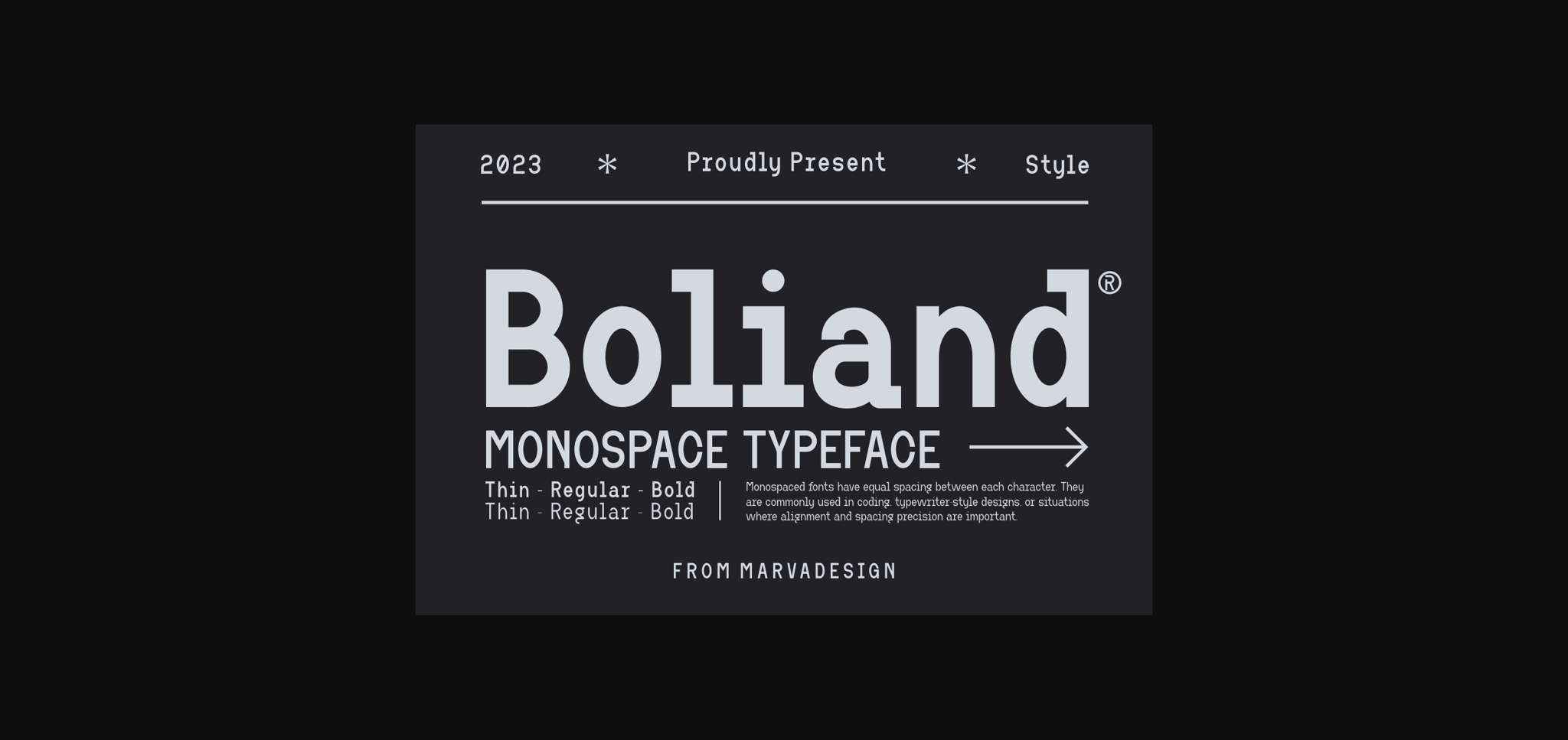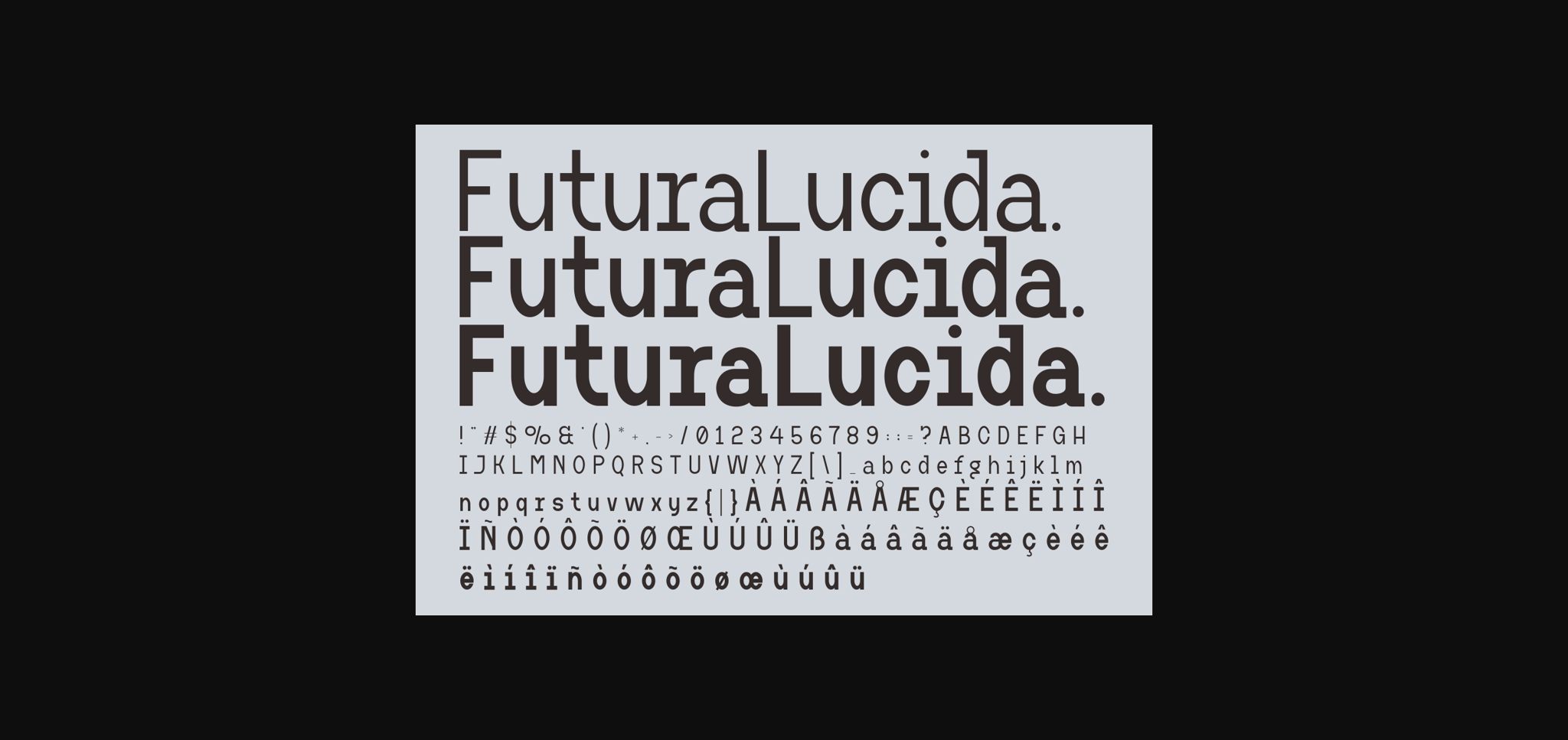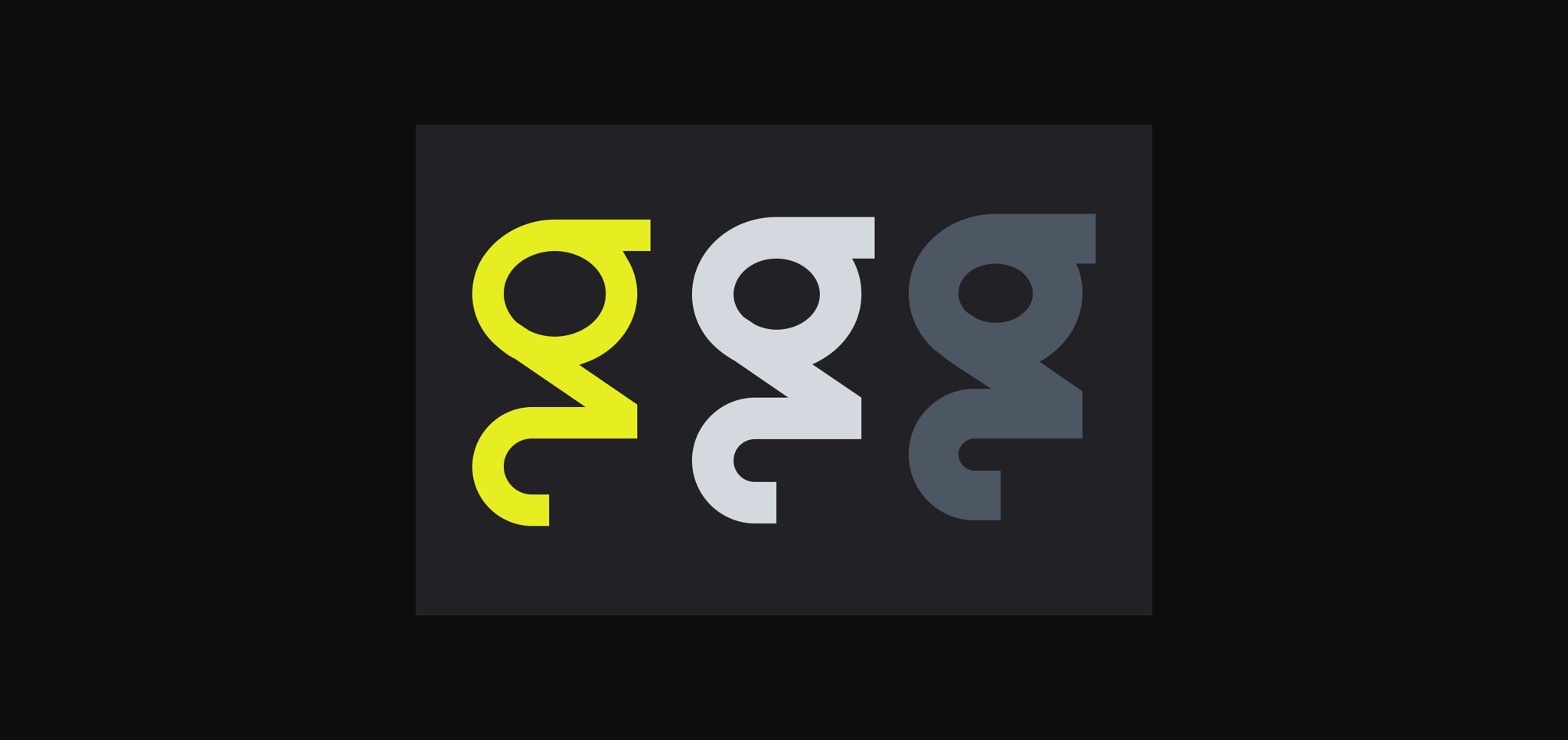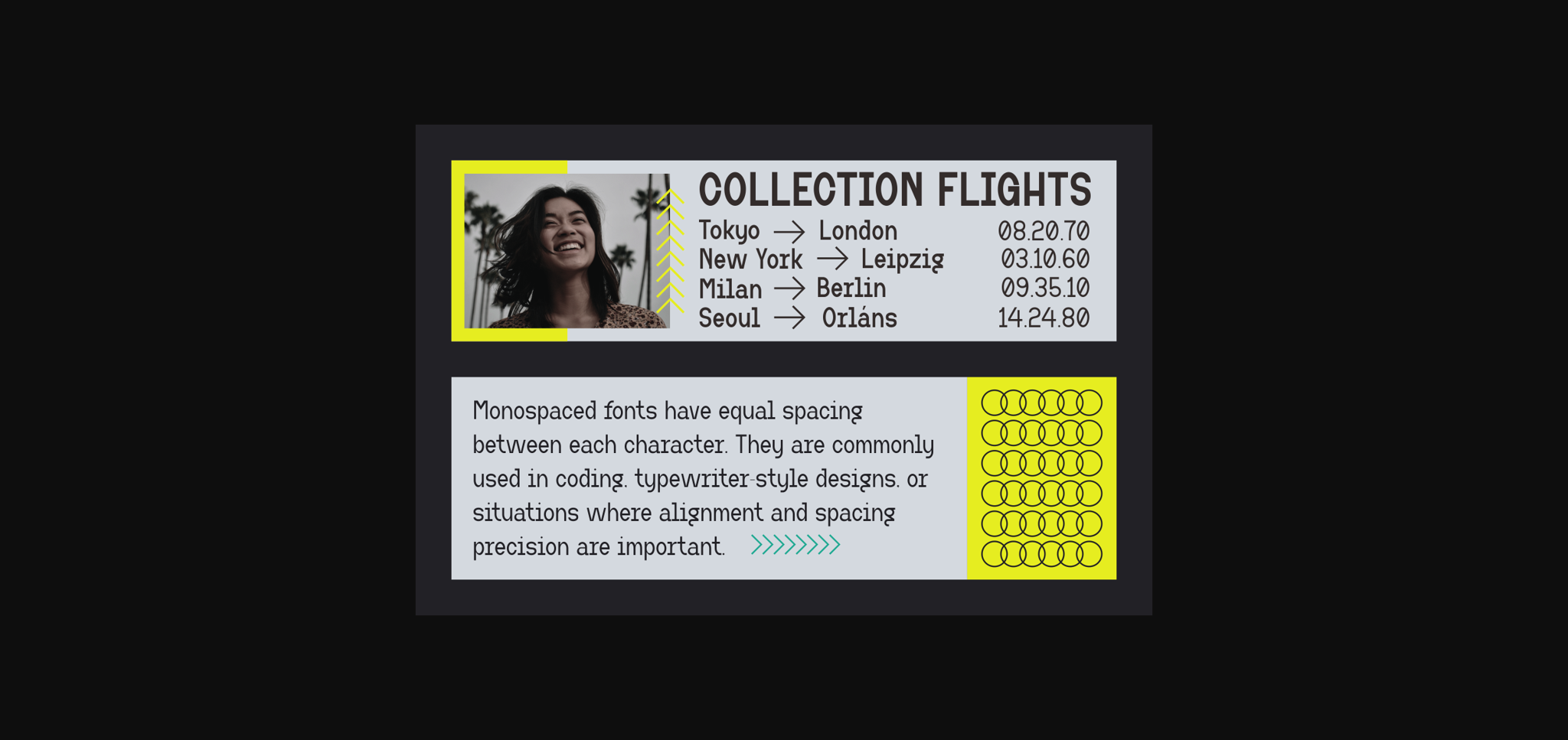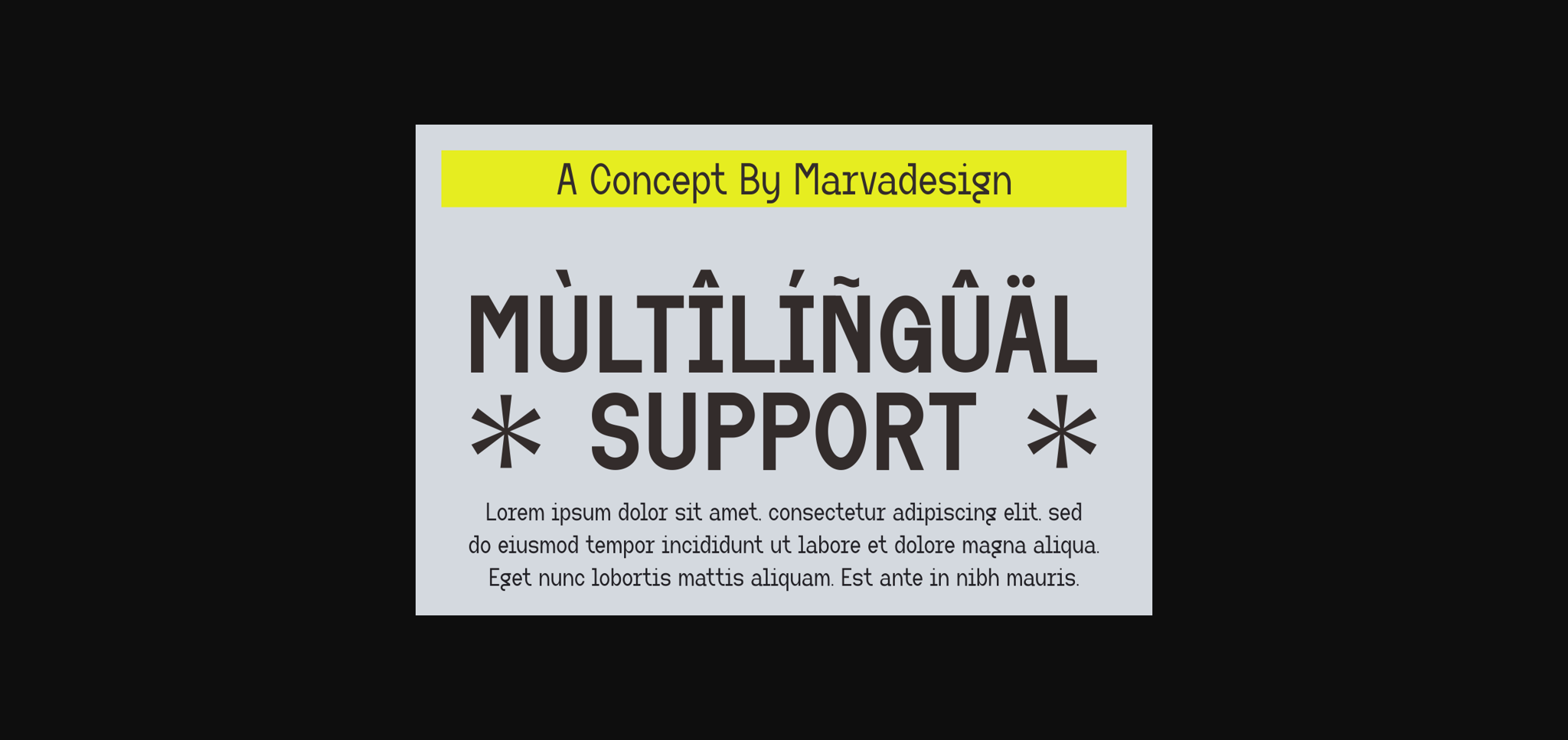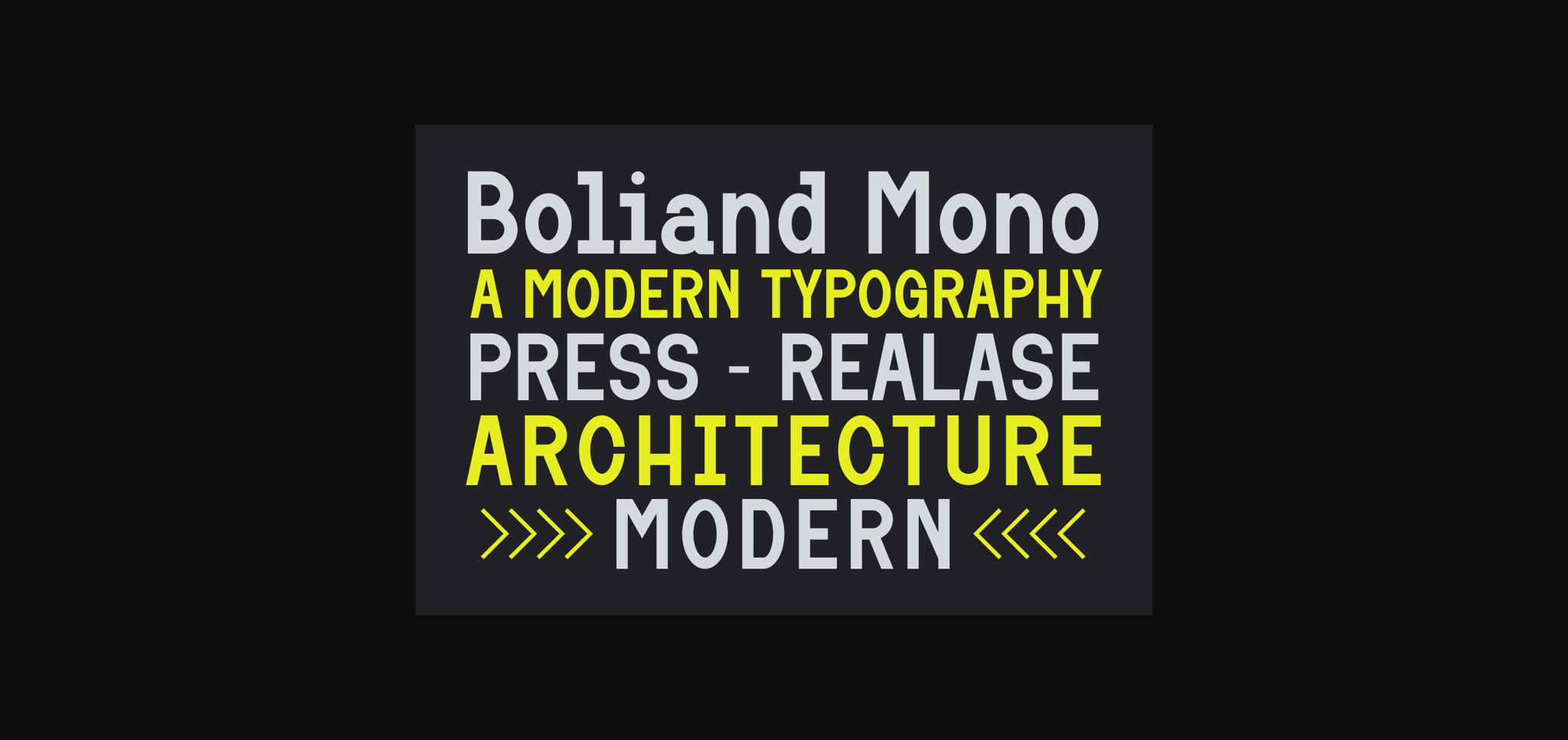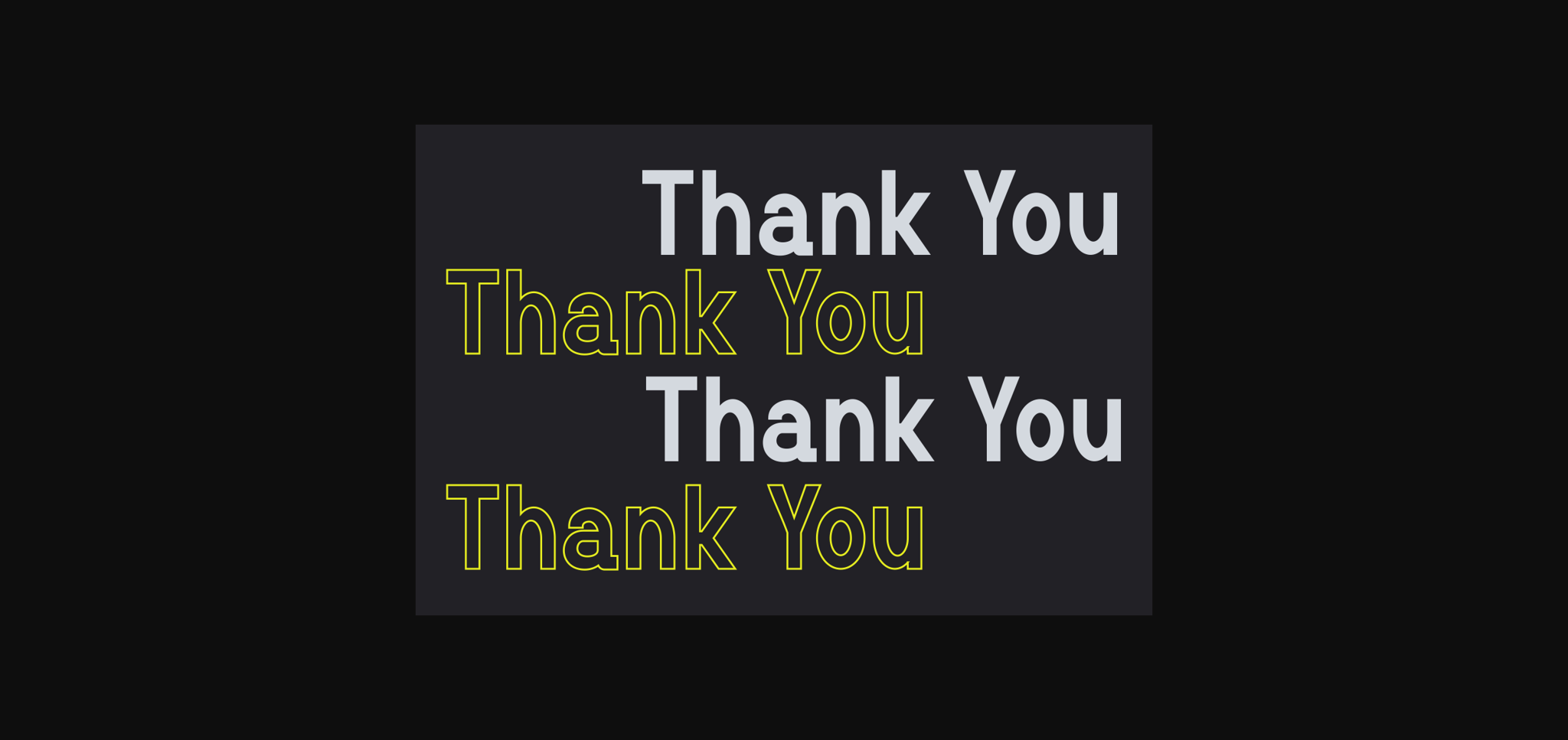
Boliand Font
About Boliand Font
Boliand is a modern monospace typeface. Boliand is suitable for various products such as invitations, product packaging, quotes, product design, crafter, labels, photography, watermarks, logos & branding.